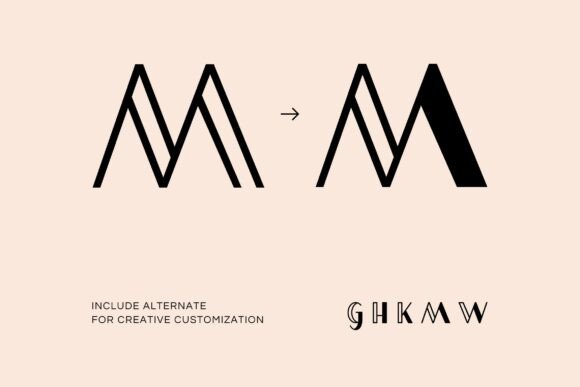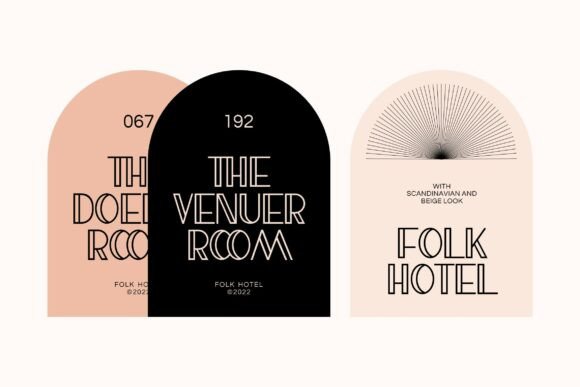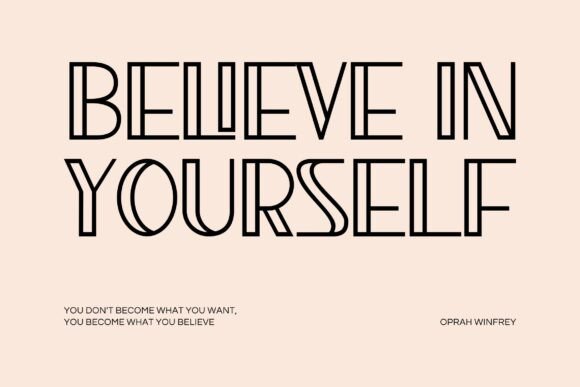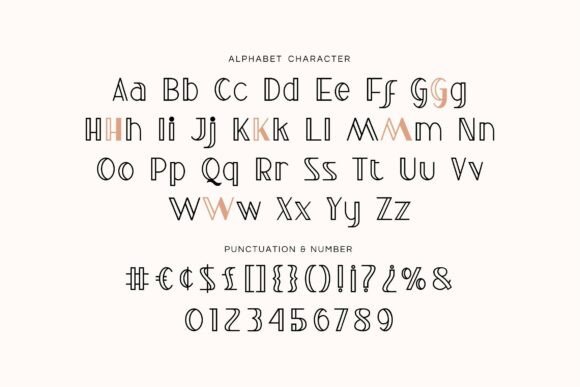
Introduction to Norice Font
You know that feeling when you’re working on a creative project and the perfect font just isn’t there? You’ve searched high and low, scoured design resources, and even downloaded a few free fonts, but nothing quite captures the essence of your vision. That’s where the Norice Font comes in – a stunning modern outline that seamlessly blends geometric elegance with the sophistication of art deco influences.
With its elegant double line contours and geometric construction, Norice Font exudes a luxurious, high-quality feel that’s perfect for designers looking to elevate their creative projects. Whether you’re working on a high-end branding project, a chic packaging design, or a modern editorial layout, Norice Font is sure to shine. And the best part? It’s available for free download, making it an invaluable design resource for any creative professional.
Key Features of Norice Font
- High-quality design resource with a unique, modern aesthetic.
- Transparent background, ideal for creative projects requiring a clean and minimalist look.
- Includes multiple font styles, including bold and italic variations, to enhance creative possibilities.
- Designed with a high resolution (up to 1024 x 1024 DPI), ensuring crisp and clear text rendering.
- Perfect for use in logos, branding materials, and digital designs, where a clean and modern look is essential.
Honest Review: Norice Font
As a designer, I’m always on the lookout for high-quality design resources that can elevate my creative projects. Recently, I stumbled upon the Norice Font, and I’m excited to share my thoughts on this font.
What works well: ✨ The Norice Font has a unique, elegant design that’s perfect for creating a professional and sophisticated look. The font is also highly legible, making it an excellent choice for both body text and headings. The transparent background option is a bonus, allowing me to easily customize the font to fit my design needs.
What’s not so great: ⚠️ While the Norice Font is free to download, it’s not available in as many weights and styles as some other fonts. Additionally, the font may not be suitable for use in very small sizes, as the lines can become slightly jagged.
Overall, I’m impressed with the Norice Font’s design and versatility. While it may have some limitations, it’s a great resource for designers looking for a high-quality, free font to add to their toolkit. If you’re working on a creative project and need a sophisticated font, the Norice Font is definitely worth checking out.
- Unique, elegant aesthetic
- Not available in as many weights and styles as other fonts
- May not be suitable for very small sizes
Norice Font is commonly used for creative projects, including branding, marketing materials, and social media graphics. Its unique design and transparent background make it a popular choice for designers looking to add a touch of elegance to their work.